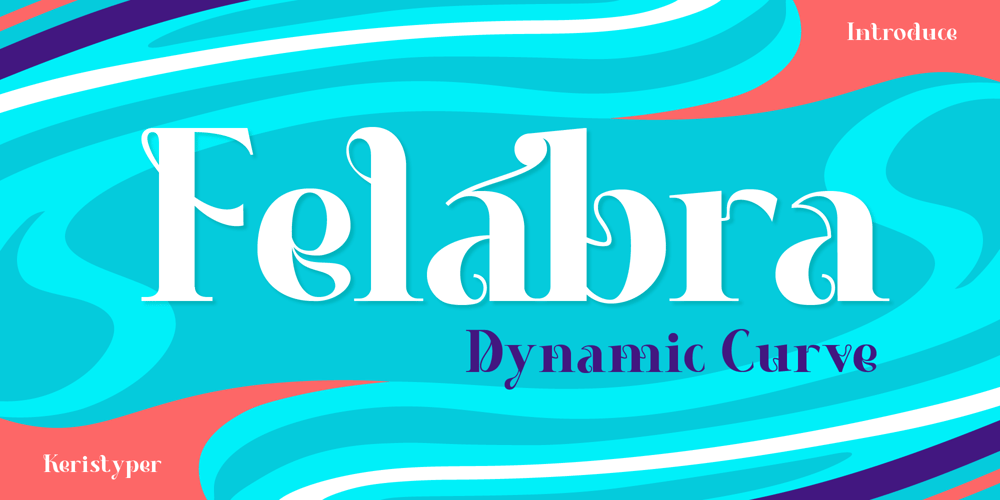
Felabra Font Family was designed by Tezar Tantular and published by Keristyper Studio. Felabra contains 1 styles and family package options. Felabra adalah font kontemporer dengan kurva terhubung yang menyenangkan, memberikan nuansa unik tetapi juga bisa modern dan memukau. This font is good for logo design, Social media, Movie Titles, Books Titles, short text even long text letters, and good for your secondary text font with sans or serif.Featured: Standard Uppercase & Lowercase Numeral & Punctuation Multilingual : ä ö ü Ä Ö Ü ß ¿ ¡ Alternate & Ligature PUA encoded We recommend programs that support the OpenType feature and the Glyphs panel such as Adobe applications or Corel Draw. so you can use all the variations of the glyphs.Hope you enjoy our fonts!